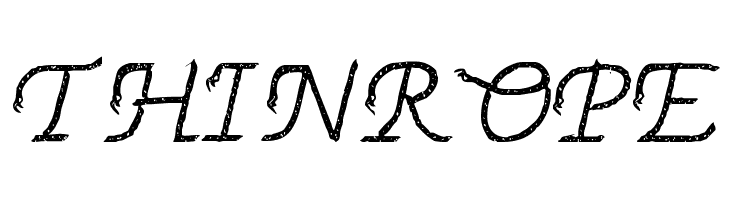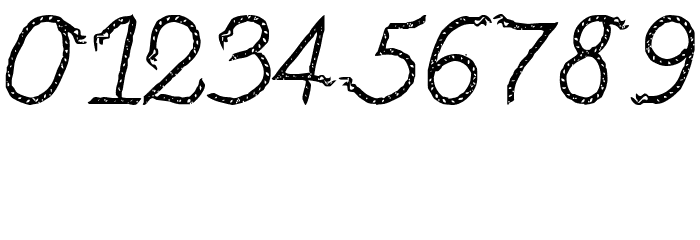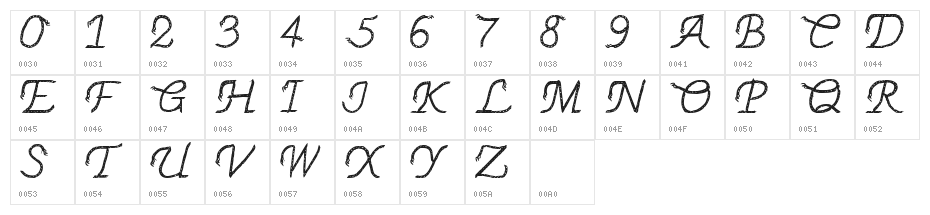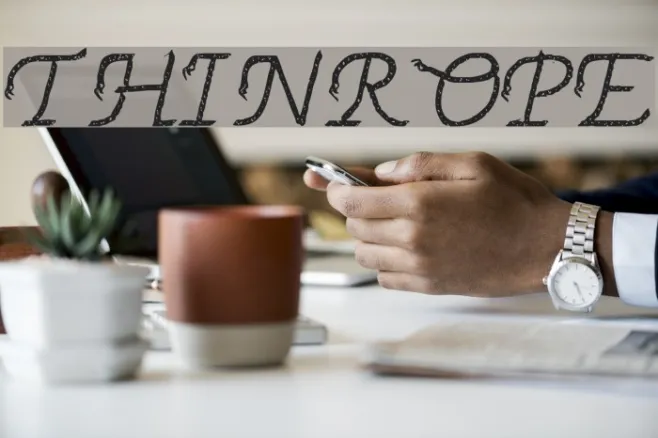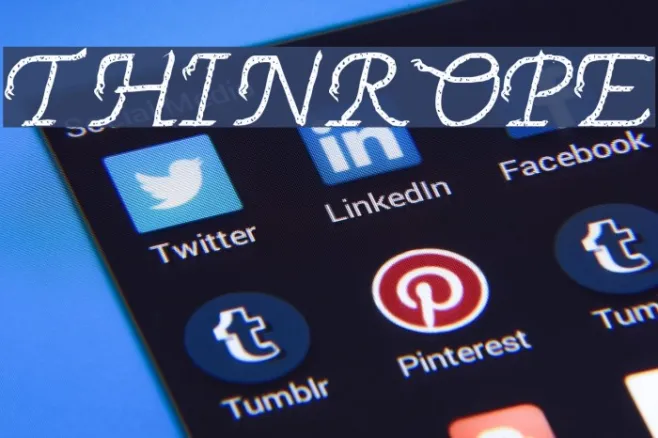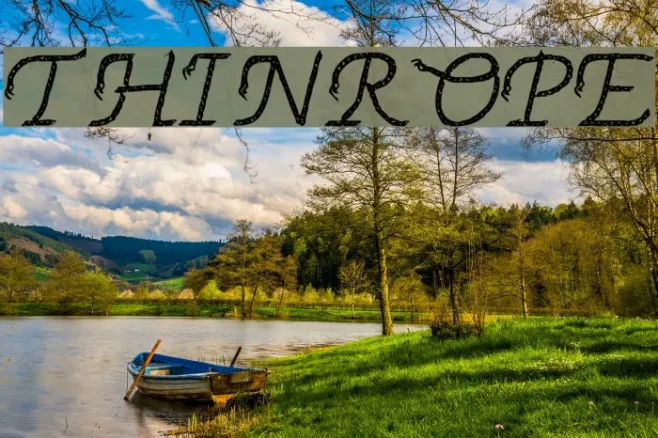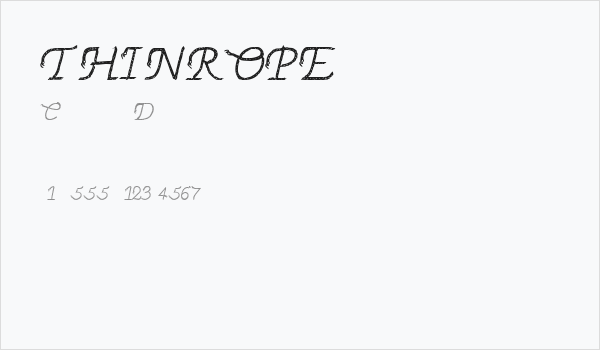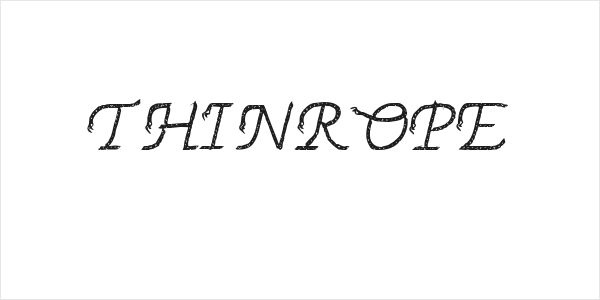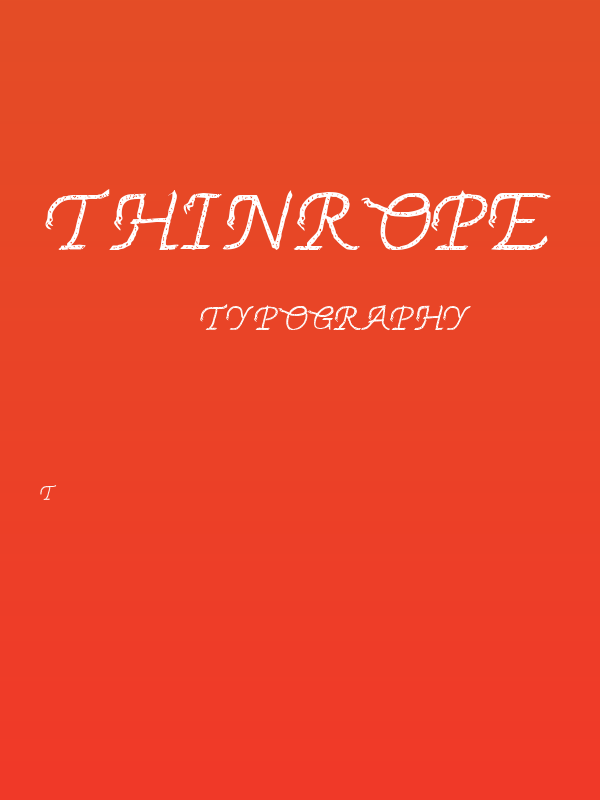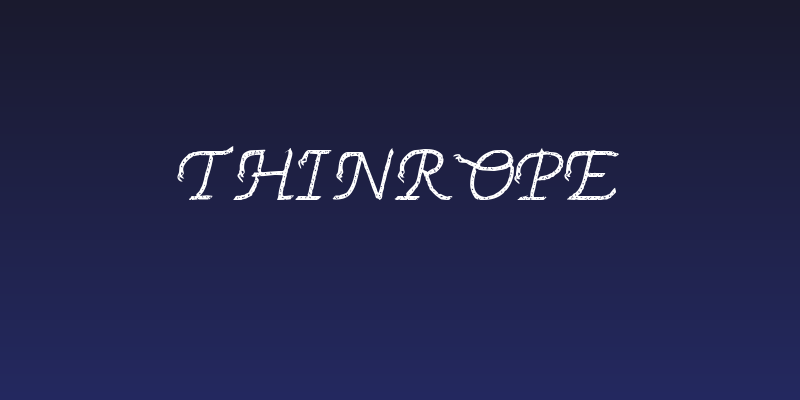
THINROPE Font
THINROPE Description
This font features a unique design that mimics the appearance of a thin rope, giving it a textured and intertwined look. The characters are crafted with a consistent rope-like pattern, creating a sense of movement and fluidity. The uppercase letters are elegantly curved, while the numerals maintain a balanced and cohesive style. This font's intricate detailing makes it stand out, offering a decorative and artistic flair suitable for creative projects. The overall design is both playful and sophisticated, making it versatile for various applications.
| Proposed Projects | Ideal for branding, invitations, posters, and any project requiring a creative and decorative touch. |